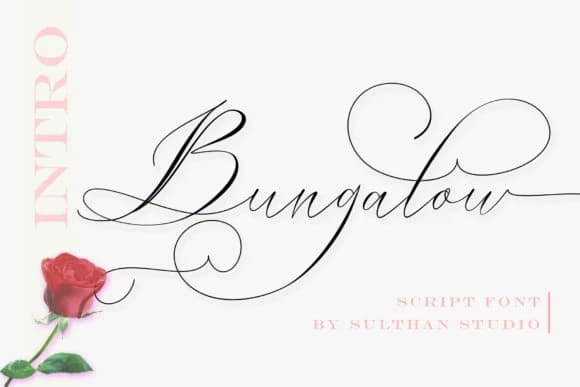
Picture a wedding invitation with flowing script across cream cardstock, or a small business owner creating artisan product labels for their handmade goods. Bungalow Script, designed by Sulthan Studio, is made for exactly these moments. This handwritten script brings warmth and personality to wedding invitations and save-the-dates, boutique product packaging, artisan food labels, personalized greeting cards, and DIY craft stationery. The letterforms have a natural, flowing quality that reads well even at display sizes, equally at home on custom signage and delicate paper stock for intimate occasions.
This script's casual elegance suits a wide range of projects. Use it for custom wedding stationery, small-batch branding, scrapbooking layouts, thank you cards, and social media graphics that need genuine character and warmth. Its friendly voice adds personality without becoming overly decorative, so it fits both formal applications like wedding suites and playful ones like DIY gift tags or craft fair signage. Readability stays consistent across different sizes and backgrounds, which matters when you're layering text over images or choosing it for larger format work like posters or window displays.
Bungalow Script Font is a script font that shines as a display or heading face. Pair it with a clean sans-serif or serif font for body text β the contrast creates a clear hierarchy while the two styles stay balanced and easy to read.